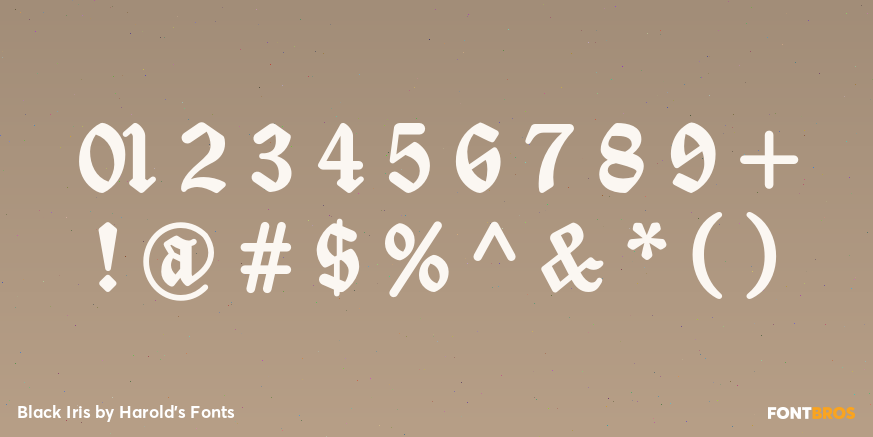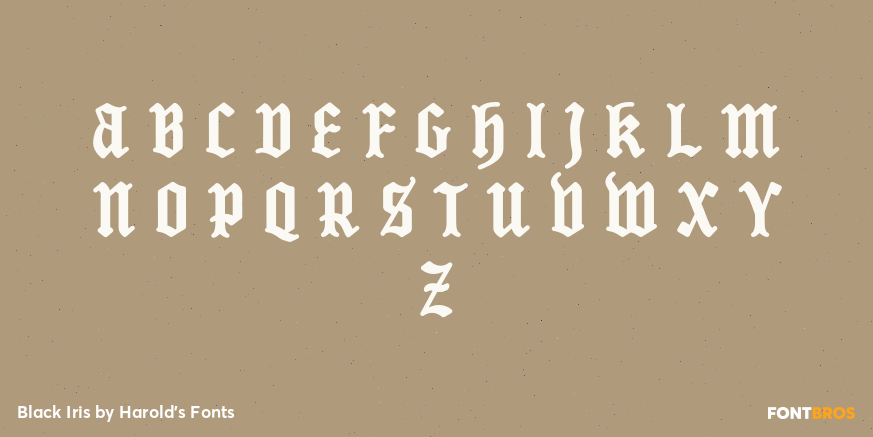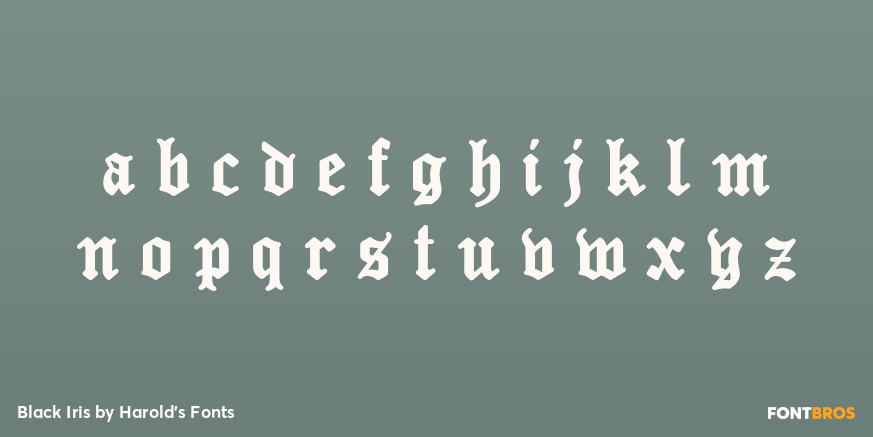
Black Iris
Font Family by Harold's Fonts
Black Iris is a blackletter font with rounded strokes for a unique texture. The lowercase follow conventional letterforms, but I've designed the uppercase to be more legible to modern eyes. And it works great in ALL CAPS, unlike many blackletter fonts.